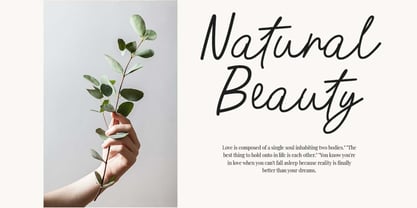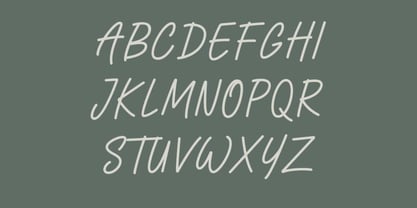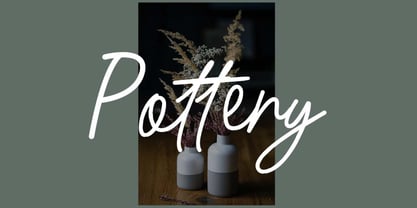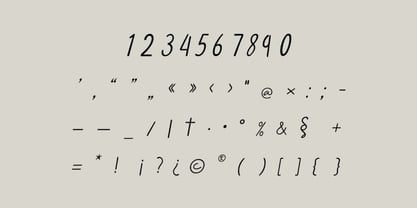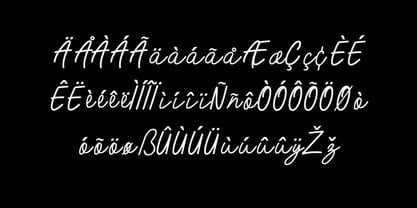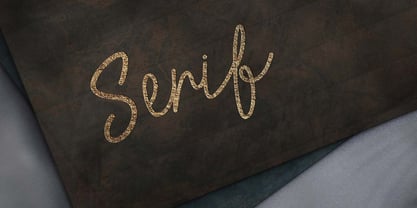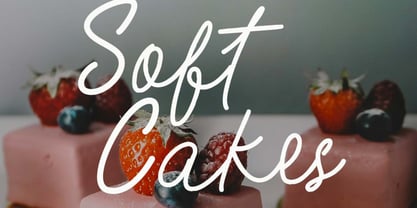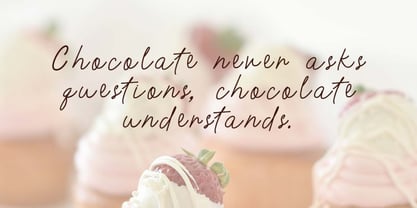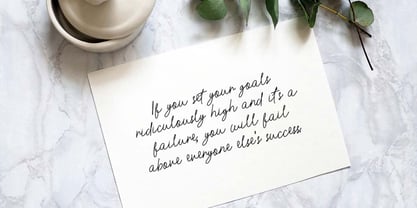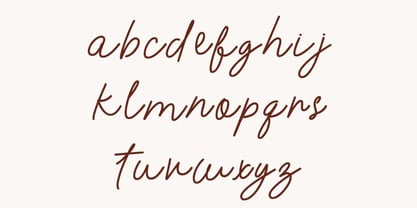
SandwichParadise
Die Schriftfamilie SandwichParadise wurde von Hero entworfen und von UICreative veröffentlicht. SandwichParadise enthält 1 Stile. Mehr über diese Familie
Sandwich Paradise Lettering Handwritten Font. The modern display font feels beautiful classy, elegant, and stylish. This font is ideally suited for a wide variety of projects, such as signature, stationery, logo, wedding, typography quotes, magazine or book covers, website headers, branding, and more. Also, fashion-related branding or editorial design displays both masculine and feminine qualities.